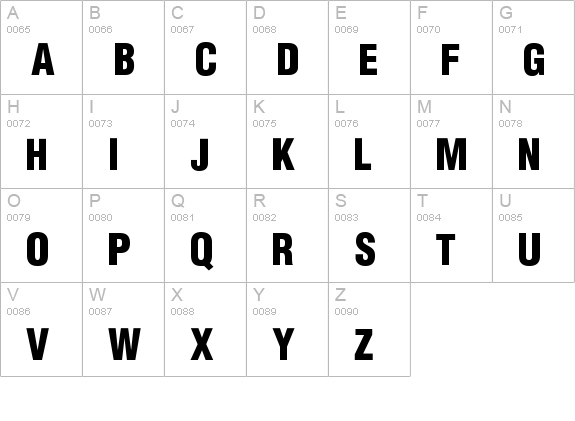
HallmarkeCondBlack Font Details
HallmarkeCondBlack is a striking and bold font that exudes confidence and elegance. With its clean and sleek lines, this font commands attention and leaves a lasting impression. Its tall and slender letterforms make it perfect for headlines, titles, and branding projects that require a sophisticated touch. This font offers a unique blend of strength and sophistication, making it suitable for a wide range of design applications. Whether you're designing a magazine cover, a logo, or a website header, HallmarkeCondBlack will add a touch of class and professionalism to your project. The best part is that HallmarkeCondBlack is available for free! You can easily download this font from FontsMarket.com, a trusted source for high-quality fonts. With just a few clicks, you can have access to this exceptional font and elevate your designs to the next level. So why wait? Download HallmarkeCondBlack today and unlock its endless possibilities. Whether you're a professional designer or a hobbyist, this font will undoubtedly become a valuable addition to your typography arsenal. Don't miss out on this fantastic opportunity to enhance your designs with HallmarkeCondBlack, available for free at FontsMarket.com.